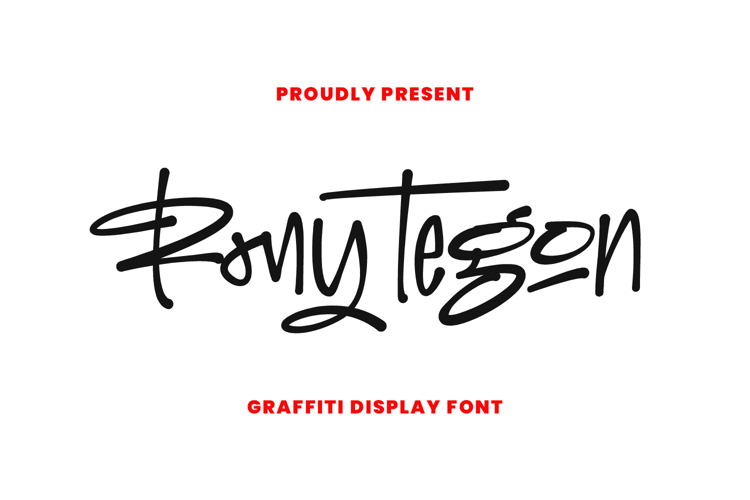
Rony Tegon Dynamic Graffiti Display Font
Unleash your creativity with Rony Tegon, a vibrant and dynamic graffiti display font that brings the raw energy of street art directly to your designs. Crafted with authentic hand-drawn details and a rebellious spirit, Rony Tegon is perfect for projects that demand attention and a distinctive urban edge. From captivating headlines and bold logos to electrifying merchandise and social media graphics, this font injects an undeniable cool factor into every creation. Make a statement, break the mold, and let your designs shout out loud with Rony Tegon.